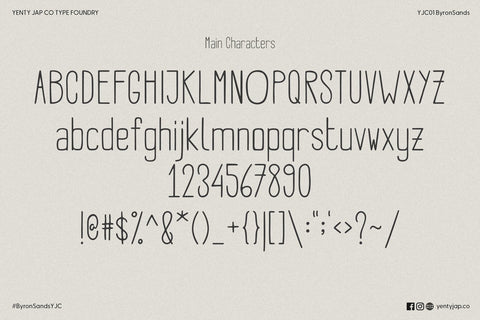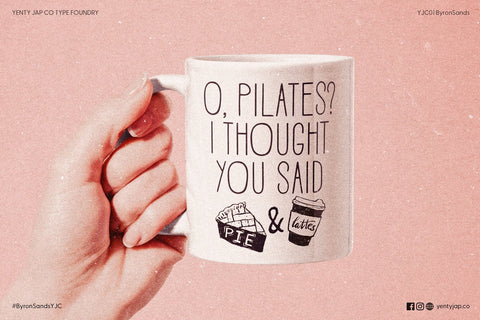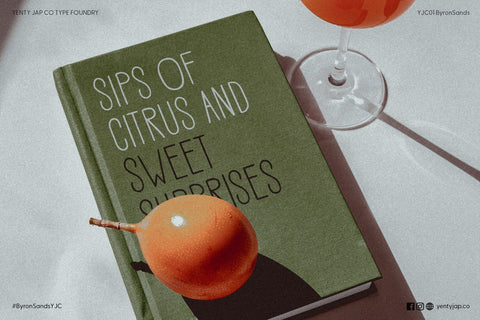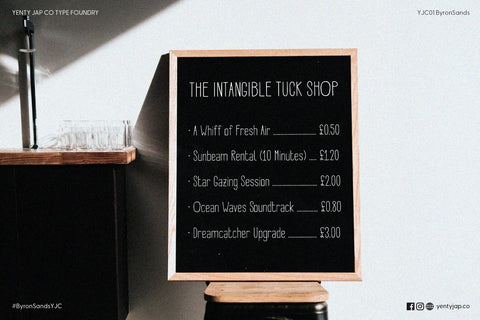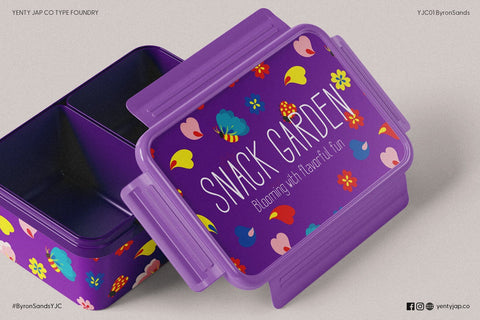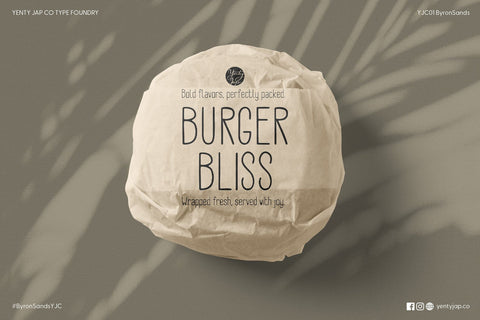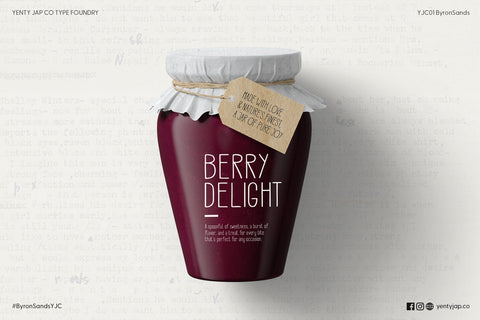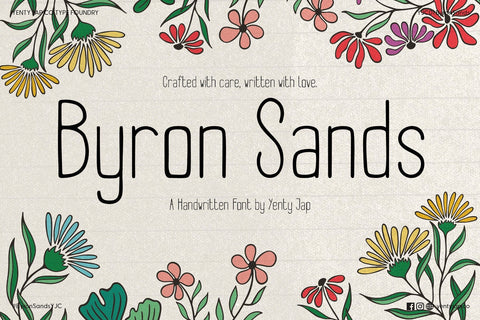
YJC Byron Sands Font – Tall Handwritten Sans Serif Font
Introducing Byron Sands, a minimalist and modern sans-serif font with a playful touch. This font is perfect for projects that require clean lines and a contemporary aesthetic while maintaining a friendly and approachable feel. Designed with versatility in mind, Byron Sands is your go-to choice for everything from branding to personal projects.
1. A full set of uppercase and lowercase letters with multilingual support
2. Numbers, punctuation, and symbols
Perfect For:
Byron Sands fits beautifully into projects where simplicity meets creativity. Here’s where this font truly shines:
• Branding & Logos: Add a fresh and modern look to your business identity.
• Product Packaging: Perfect for minimal designs with a quirky, human touch.
• Web Design: Give your headers and subheadings a stylish, clean look.
• Stationery & Invitations: Ideal for wedding invites, event programs, and everyday cards.
• Children’s Products: Bring a playful charm to lunchboxes, toys, and book covers.
• Editorial Design: Use it for magazine spreads, catalogs, or digital publications.